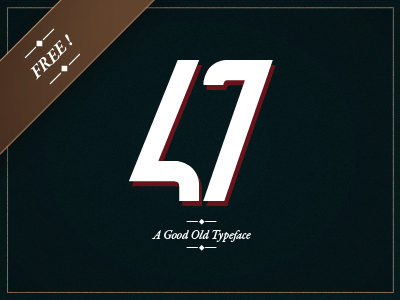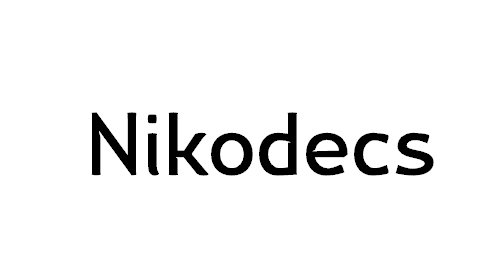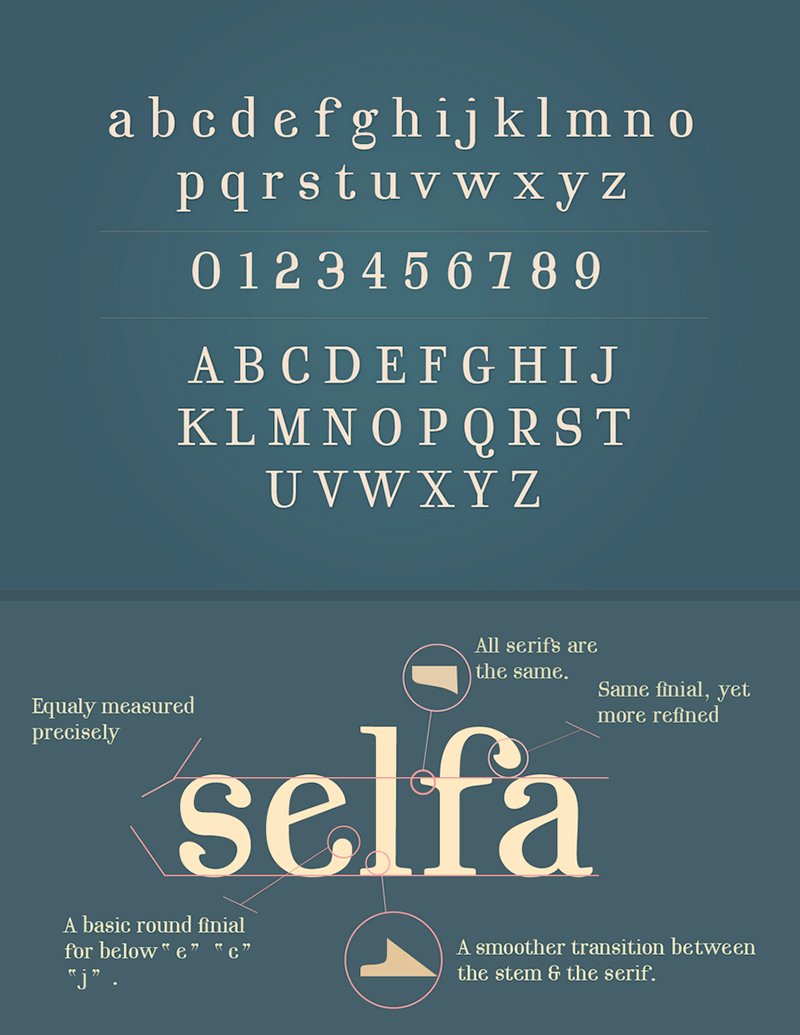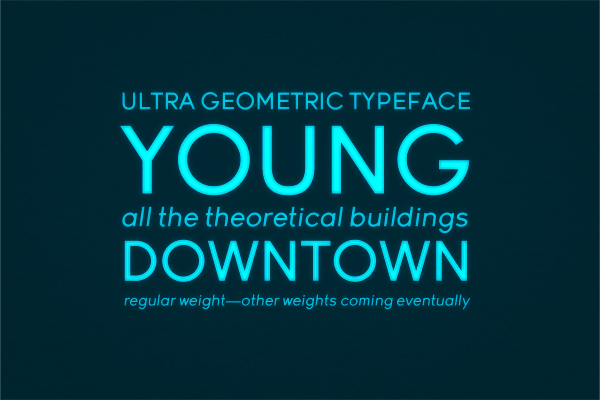
Young
Author: Scott Simpson
Description: Young is a sharp low contrast font, that would be perfect for headings, sub headings, and logo types.
Sreda
Author: Elena Kowalski
Description: Sreda is a slab serif font, that evokes sophistications and elegance at the same time. By the way, I bet this font was started or was finished on Wednesday, since Sreda in many slavic languages is Wednesday.
Selfa
Description: Selfa is a serif font, which is meticulously detailed in terms of the stem, final, and serif.
Author: Hendrick Rolandez
Description: “As MAGNA, 47 is a free typeface created in June 2012 and based on a “vintage” style too. ”
Nikodecs
Description: I can not really put my finger on it, but there is something in this font, that is just perfect for me. I hope you are like minded.